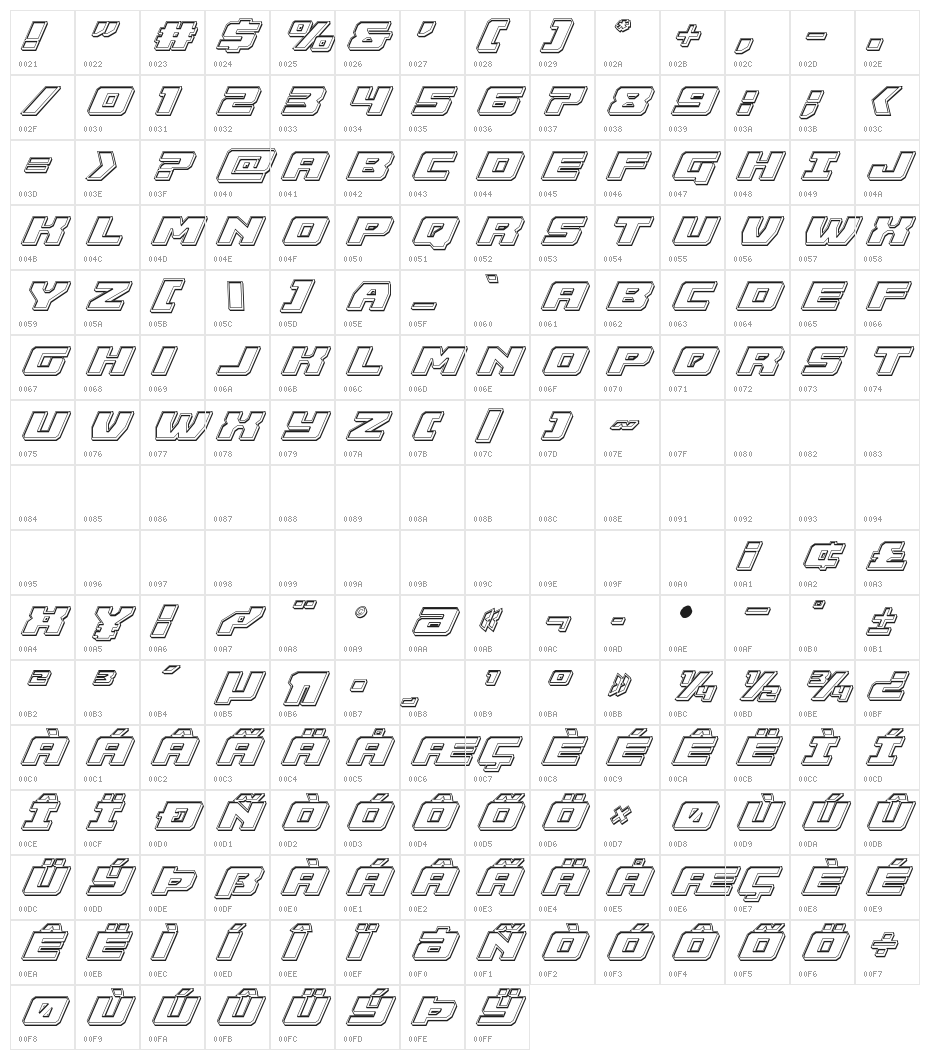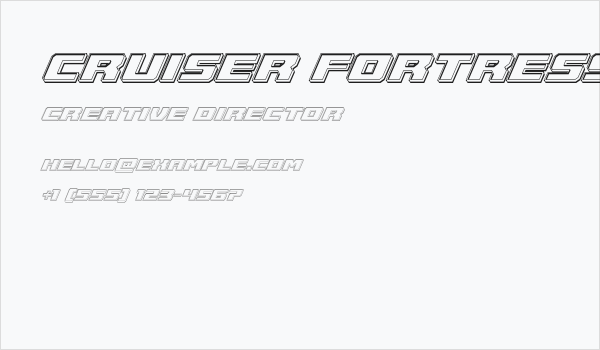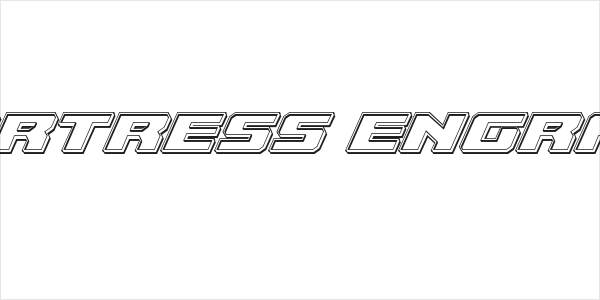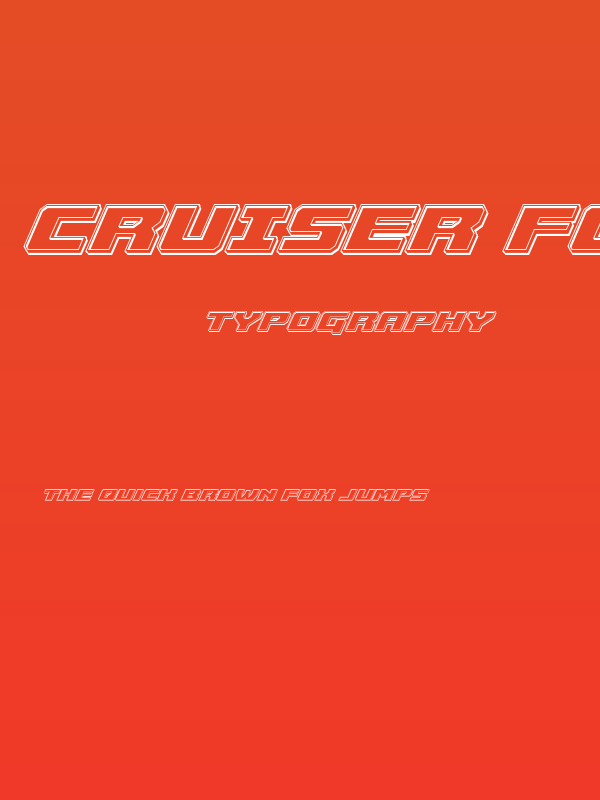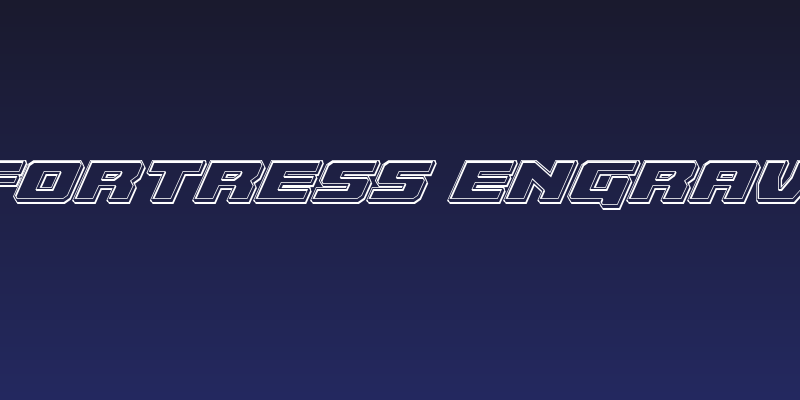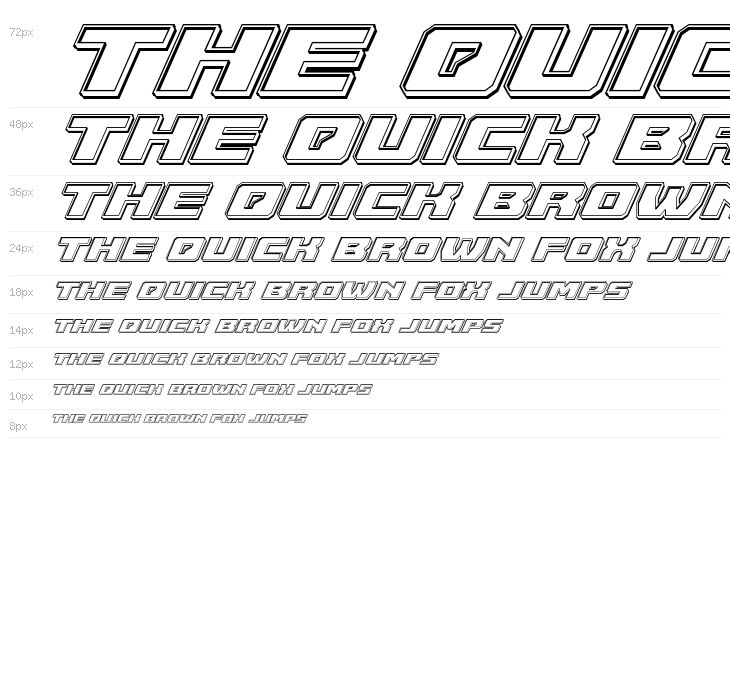
Cruiser Fortress Engraved Italic Font
Cruiser Fortress Engraved Italic Description
This font features a bold, engraved style with a three-dimensional effect, giving it a strong and impactful appearance. The italic slant adds a dynamic and forward-moving feel, while the geometric shapes and clean lines contribute to a modern aesthetic. Each character is outlined, enhancing the engraved look and providing a sense of depth. The uppercase letters are particularly striking, with consistent width and height, making them ideal for attention-grabbing headlines. The numerals and special characters maintain the same stylistic approach, ensuring uniformity across all text elements.
| Proposed Projects | Ideal for use in logos, posters, video game titles, and any design requiring a strong, futuristic look. |